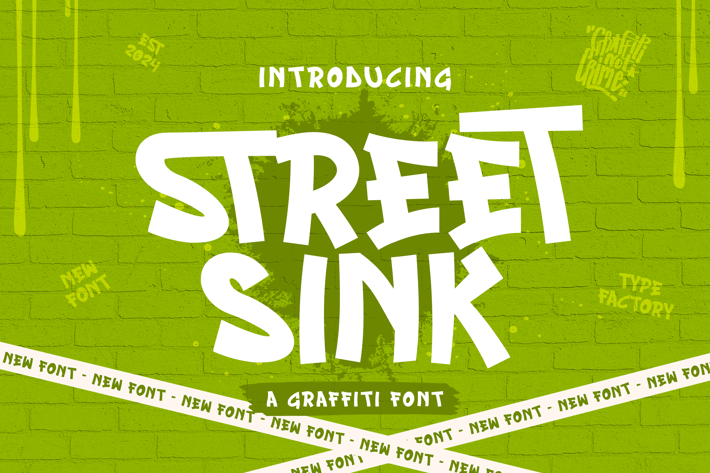
Streetsink - Graffiti Font
Street Sink is an eye-catching graffiti font that captures the raw and dynamic spirit of urban street culture. With its bold lines, expressive forms, and vibrant character, this typeface is perfect for creating striking designs that demand attention. Ideal for posters, album covers, streetwear branding, and any creative project that celebrates individuality and artistic expression, Street Sink brings an authentic, edgy vibe to your designs. Whether used in print or digital media, this font infuses your work with the energy and attitude of the streets, making it a must-have for any modern designer.